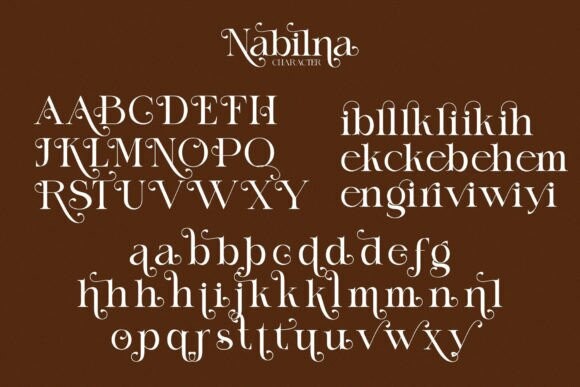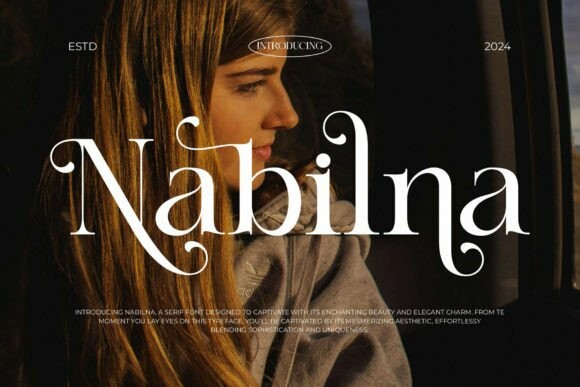
Nabilna Font
Designer: Alfinart
Nabilna Font – Modern Serif Typeface inspired by the famous minimalist logo perfect for the purposes of designing templates, brochures, videos, advertising branding, logos, invitations, layout design, elegant crafting, beauty design, and others.